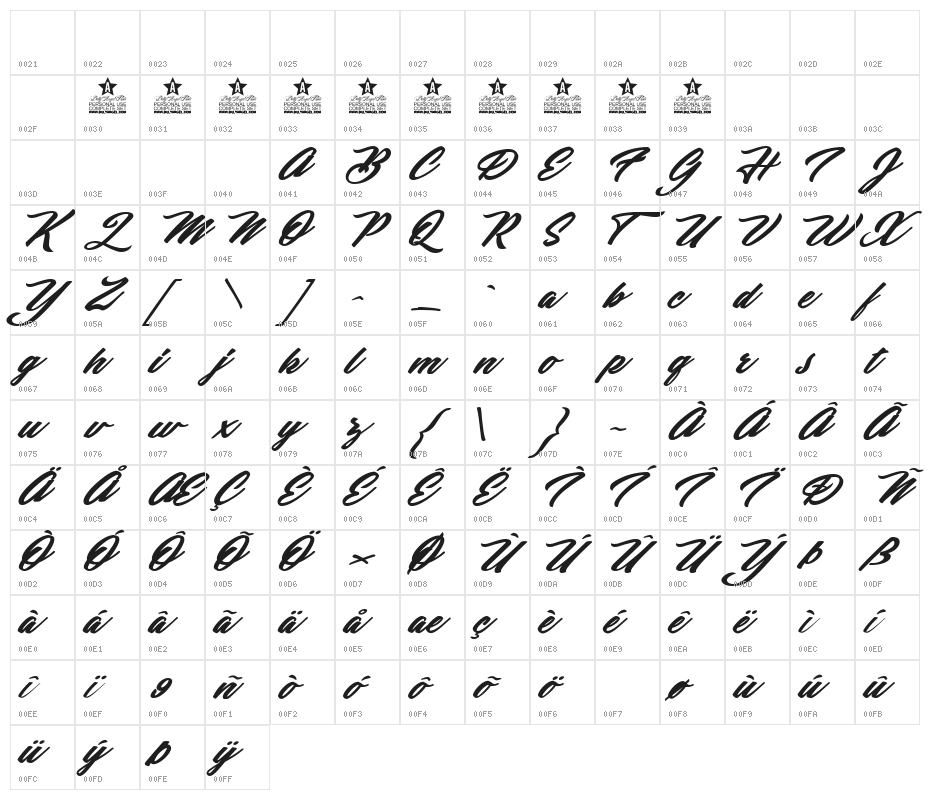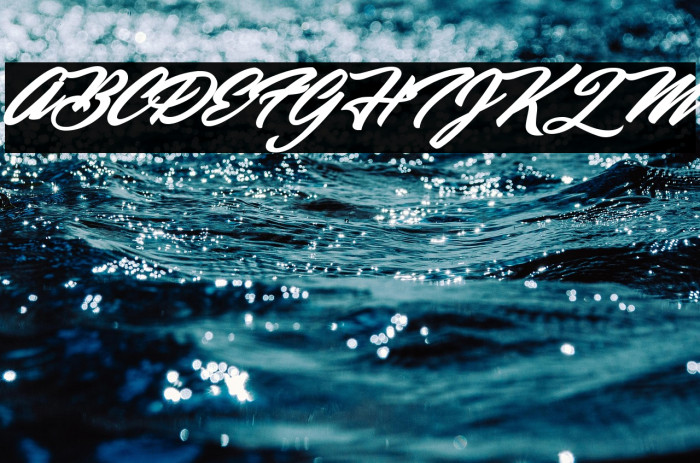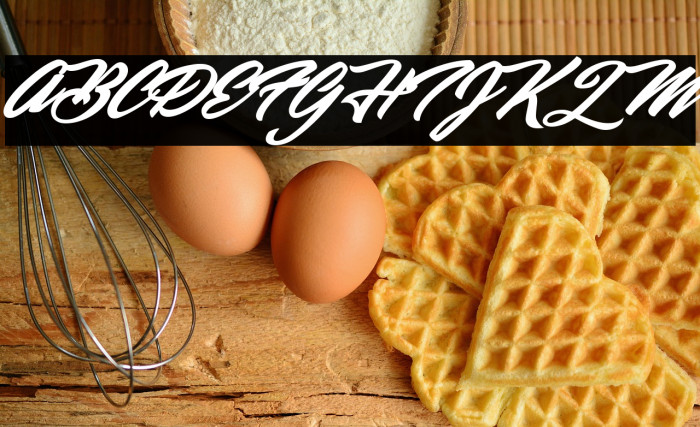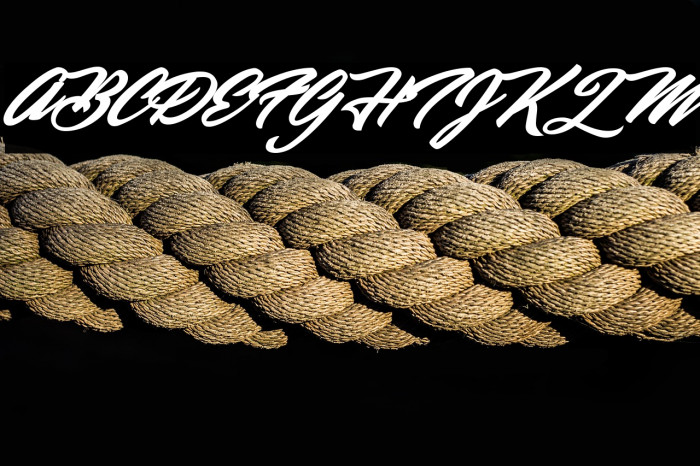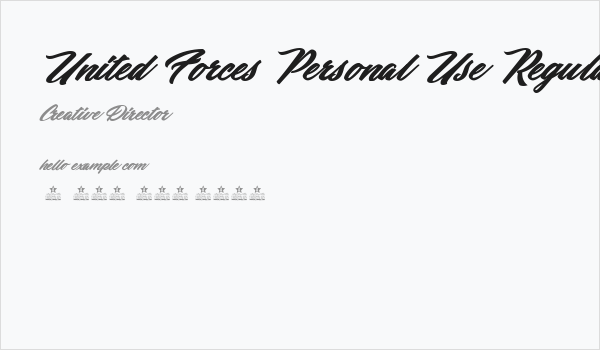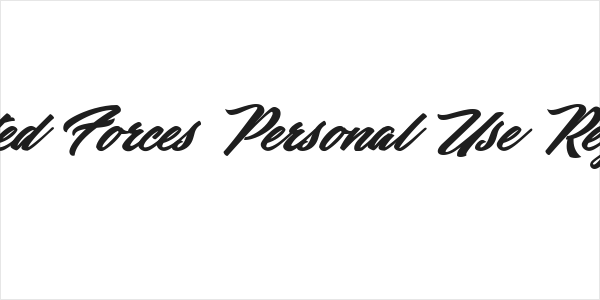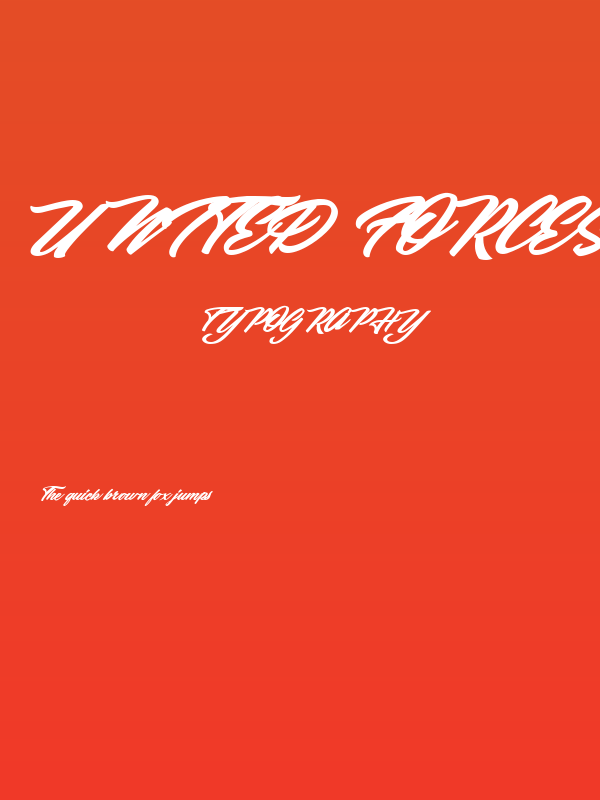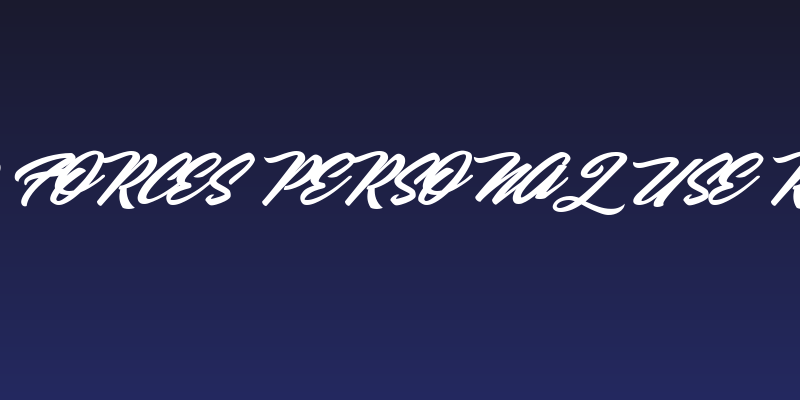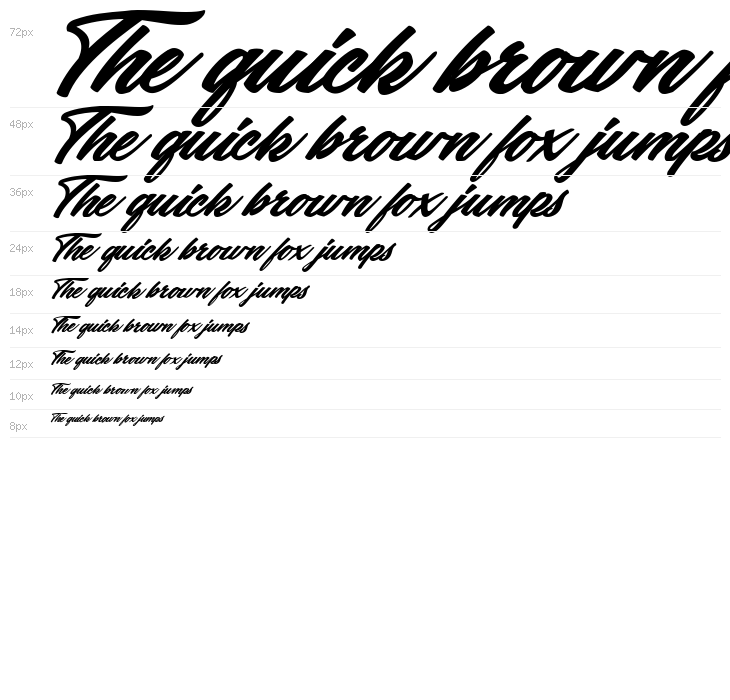
United Forces Personal Use Regular Font
United Forces Personal Use Regular Description
This font features a bold, cursive style with a strong emphasis on fluidity and elegance. The characters are interconnected, creating a seamless flow that mimics natural handwriting. The uppercase letters are slightly larger and more ornate, while the lowercase letters maintain a consistent height and style. The strokes are thick and consistent, providing a sense of strength and confidence. This font is highly decorative, making it suitable for projects that require a touch of sophistication and flair. The special characters are designed to match the overall aesthetic, ensuring a cohesive look across all text elements.